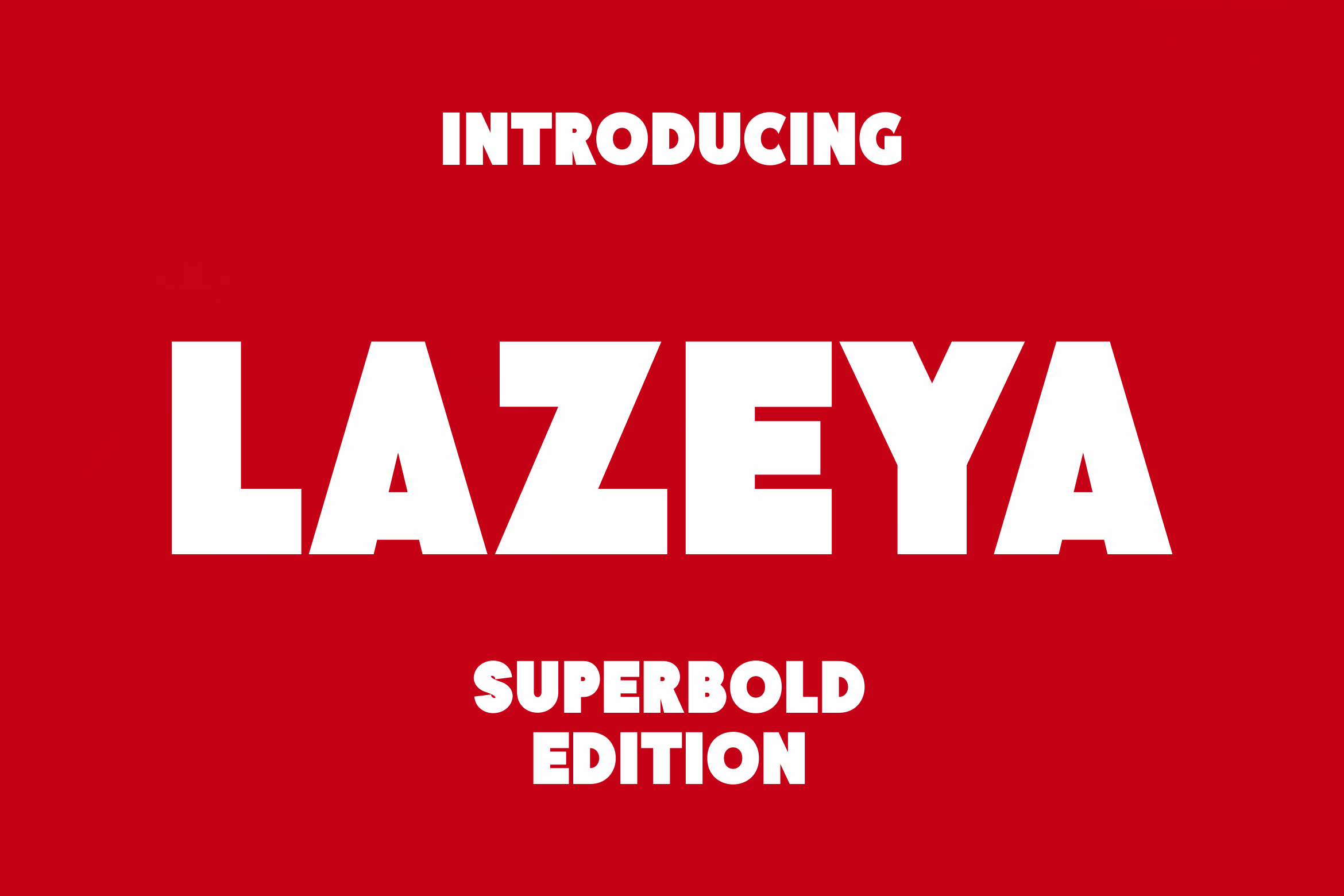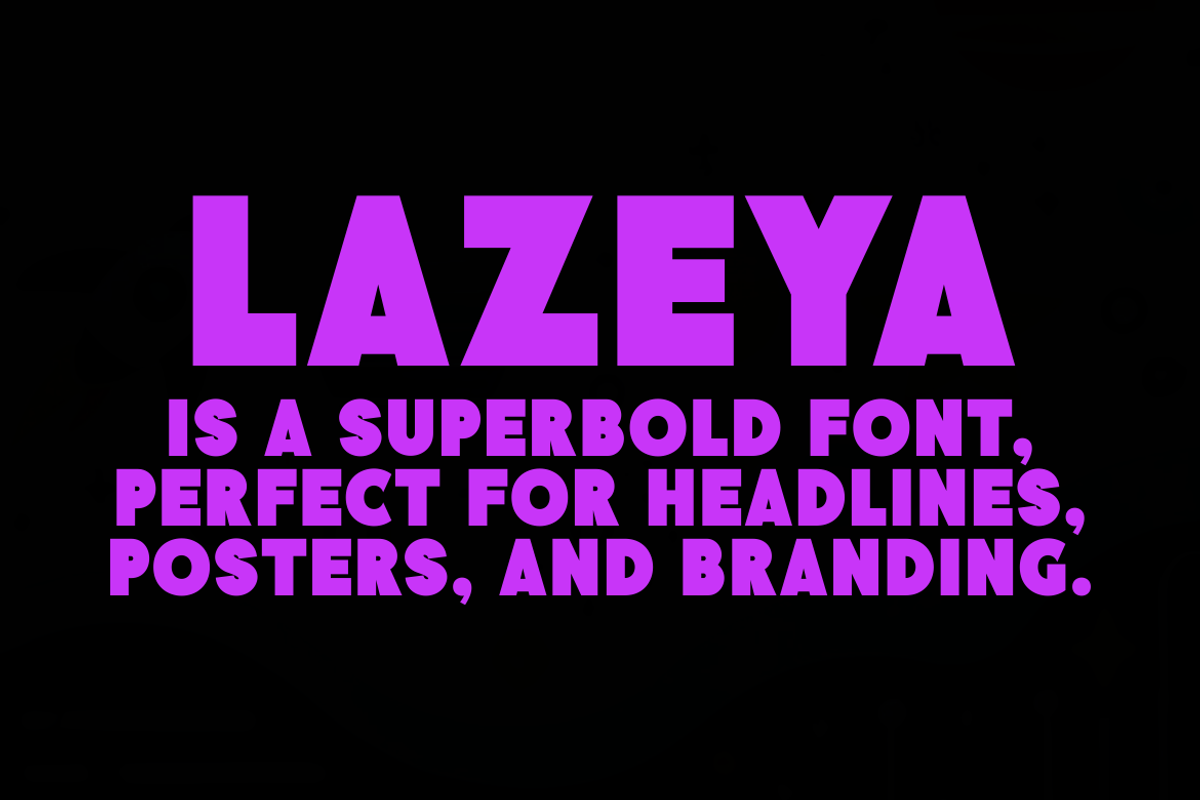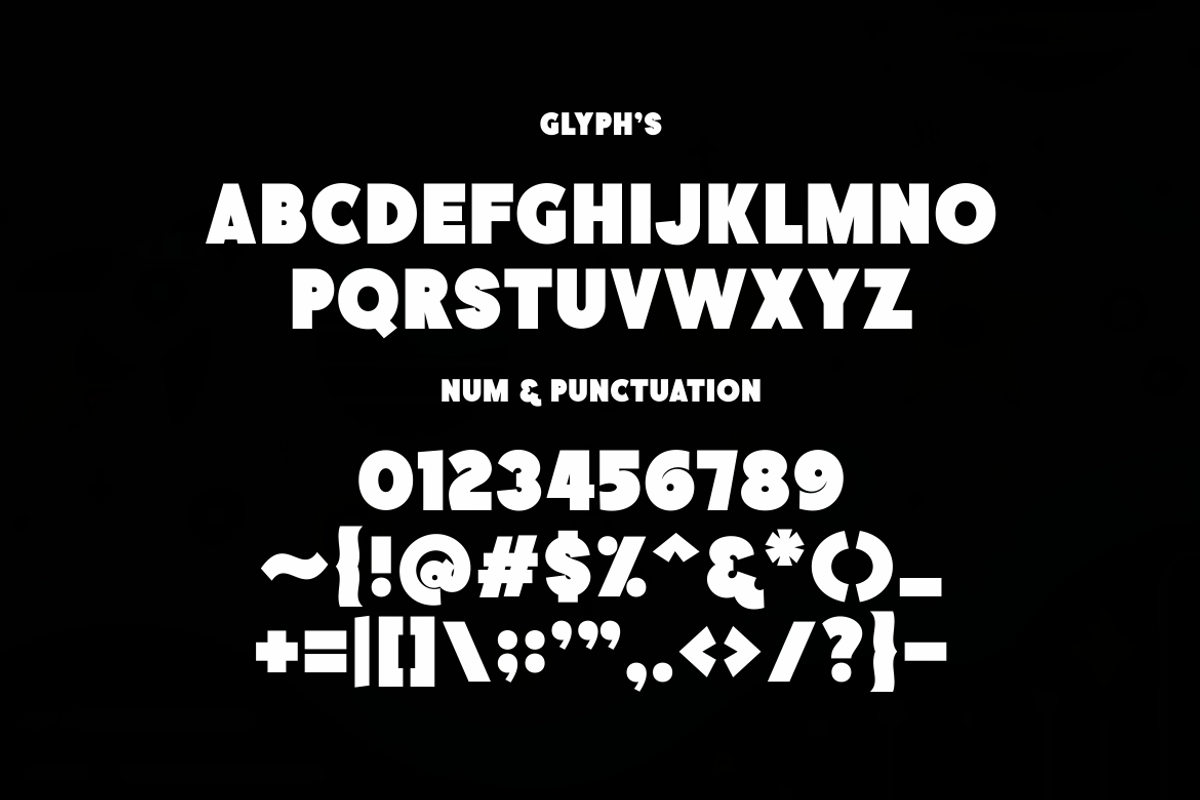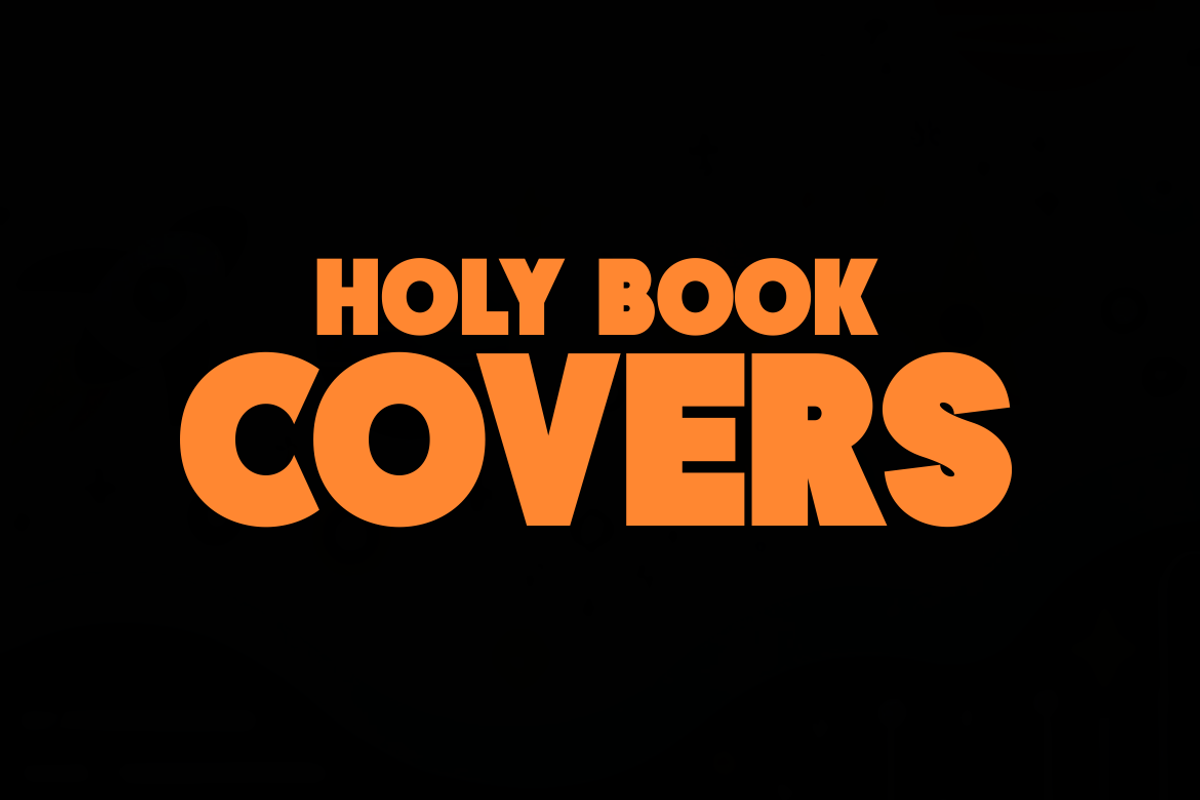
Lazeya - Bold Font
Lazeya is a superbold font, perfect for anything that needs big, strong text—posters, book and holy book covers, magazines, and more.